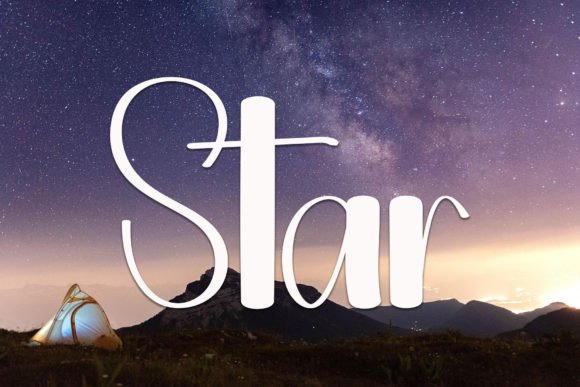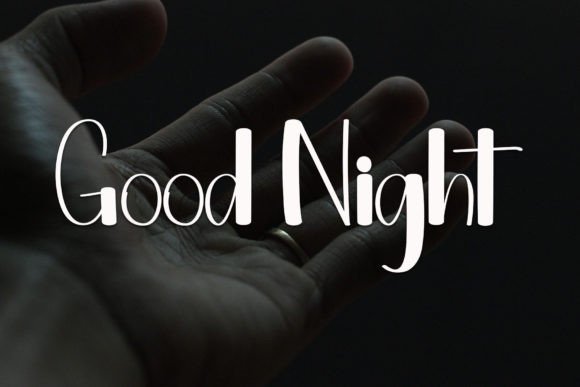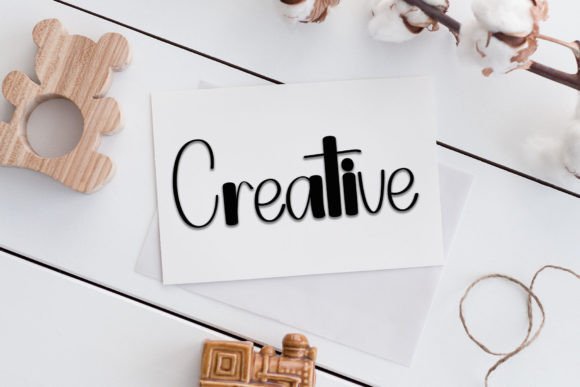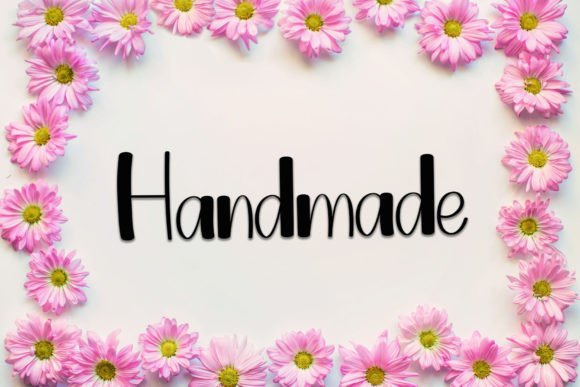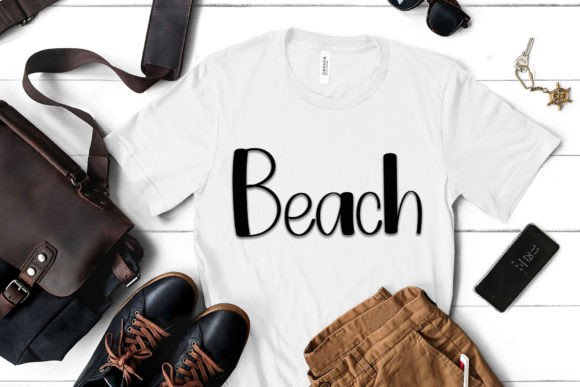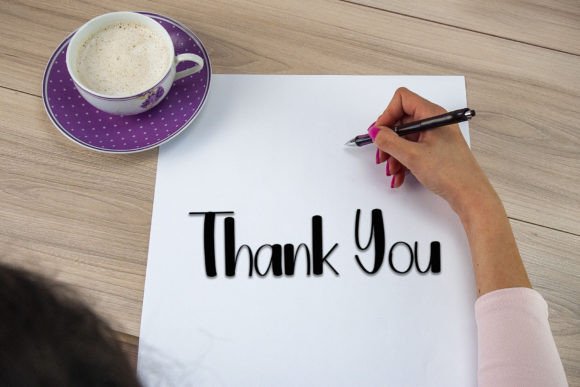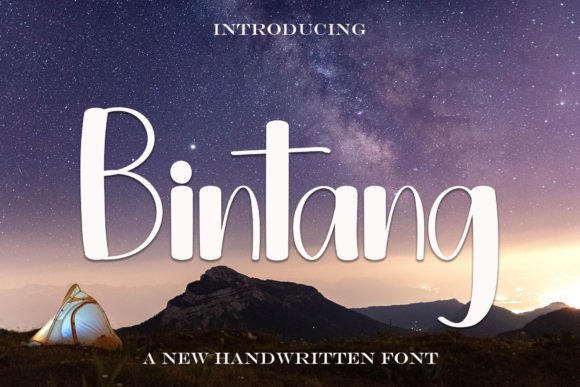
The Designer’s Delight: Falling in Love with Bintang Font
I’ll never forget the moment I stumbled upon the perfect font for a client’s wedding invitation project. I had been scrolling through pages of font options, but nothing seemed quite right. That was until I met Bintang Font – a beautiful, handwritten font that instantly captured my heart. Its elegant touch and timeless style made it an instant favorite, and I knew I had to share it with fellow designers and creatives.
An Honest Review of Bintang Font
• ✨ Elegant and sophisticated design that’s perfect for high-end projects
• 💫 Unique and distinctive style that sets it apart from other fonts
• 🎨 Versatile and can be used for a wide range of projects, from wedding invitations to branding and packaging
While Bintang Font is an amazing font, there are a few things to keep in mind:
• 🤔 Some users may find the font a bit too ornate for very casual or playful projects
• ⚠️ As with any script font, it may not be the best choice for very long blocks of text
Bintang Font was designed by a talented type designer who wanted to create a font that was both elegant and timeless. Inspired by traditional calligraphy, Bintang Font features beautiful swashes and ligatures that add a touch of sophistication to any design.
Author putrasyahreza00
Q: What type of projects is Bintang Font best suited for?
A: Bintang Font is perfect for high-end projects, such as wedding invitations, branding, and packaging.
Q: Is Bintang Font easy to read?
A: Yes, Bintang Font is highly legible, even at small font sizes.